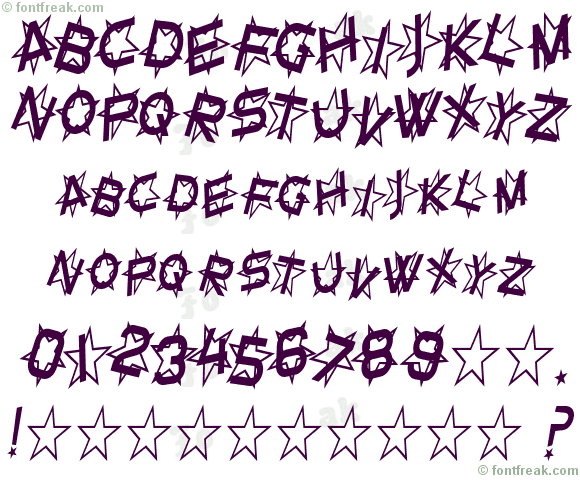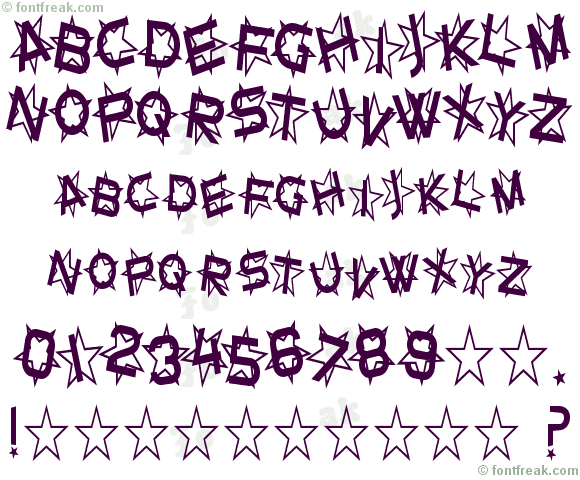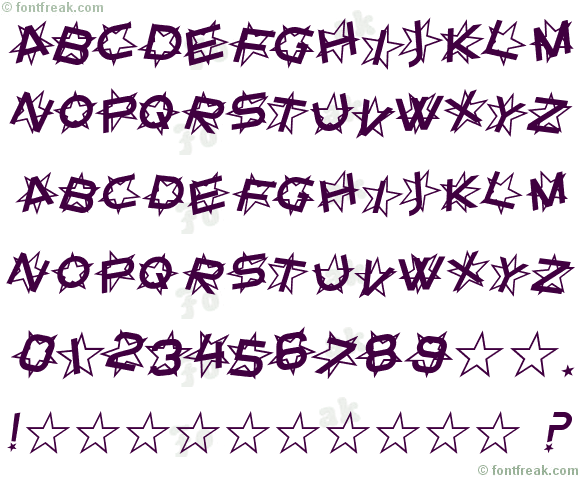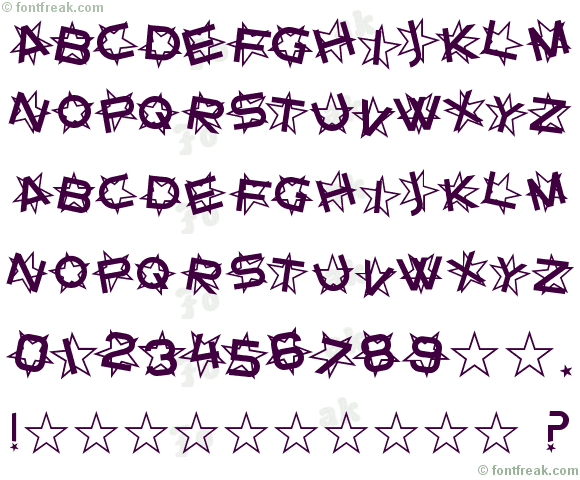
Star Dust Italic
Star Dust Condensed Italic
Star Dust
Star Dust Condensed
About Star Dust
Star Dust by Shyfonts Type Foundry is a captivating decorative font that adds a touch of whimsy to any design project. With its unique, jagged letterforms and playful aesthetic, this font effectively captures a sense of adventure and creativity. The strokes display a medium weight with dynamic contrast, giving each character a lively appearance. The spacing is relatively tight, which enhances the font’s bold presence while maintaining readability. The decorative elements, including star-like embellishments, evoke a cosmic theme that aligns perfectly with its name.
This font shines in a variety of use cases, making it an excellent choice for graphic designers and content creators. It works beautifully for event flyers, especially those with a fun or eccentric theme, such as music festivals or art shows. Additionally, Star Dust is ideal for children's book covers, where its playful nature can engage young readers. It also serves well in branding for small businesses, particularly in the entertainment or creative industries, adding a distinctive flair to logos or promotional materials. Other great applications include social media graphics and website headers, where its eye-catching style can attract attention and convey a unique brand identity.
What sets the Star Dust font apart is its ability to blend playful artistry with functional design, making it a versatile asset for both personal and professional projects. Its distinctive character and lively spirit ensure that it leaves a lasting impression.